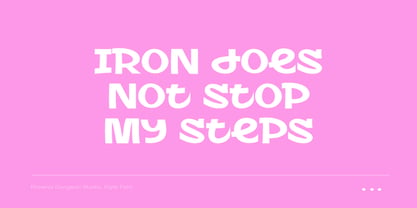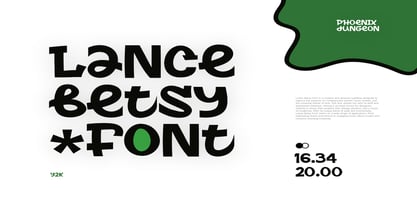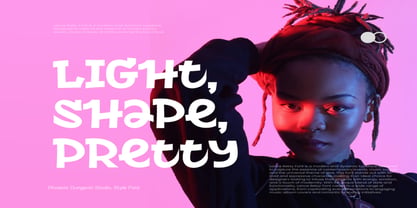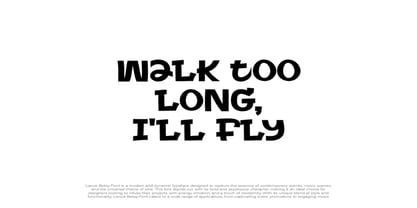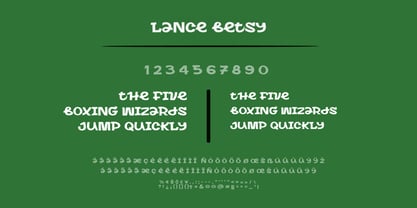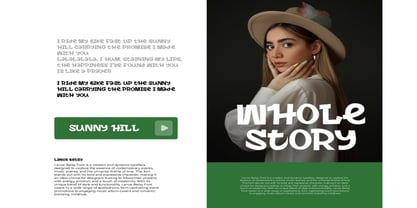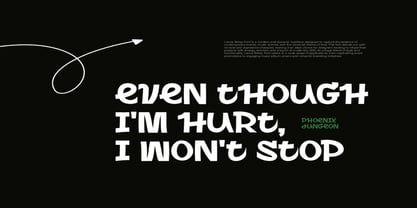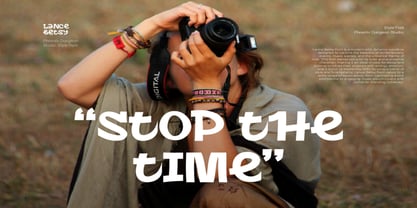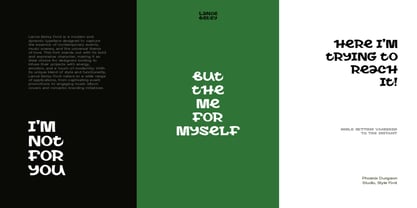
Lance Betsy
by Phoenix Group
The Lance Betsy Font Family was designed by Alif Naufal Muzakki and published by Phoenix Group. Lance Betsy contains 1 styles. More about this family
Lance Betsy Font is a bold and playful display typeface perfect for creating eye-catching designs with a funky, retro vibe. Its chunky, stylish letters bring energy and personality to any project, from posters and social media graphics to branding and merchandise. With a quirky balance of curves and bold shapes, this font is ideal for designers seeking a modern yet nostalgic look. Add a touch of creativity and fun to your work with Lance Betsy Font.
Designers: Alif Naufal Muzakki
Foundry: Phoenix Group